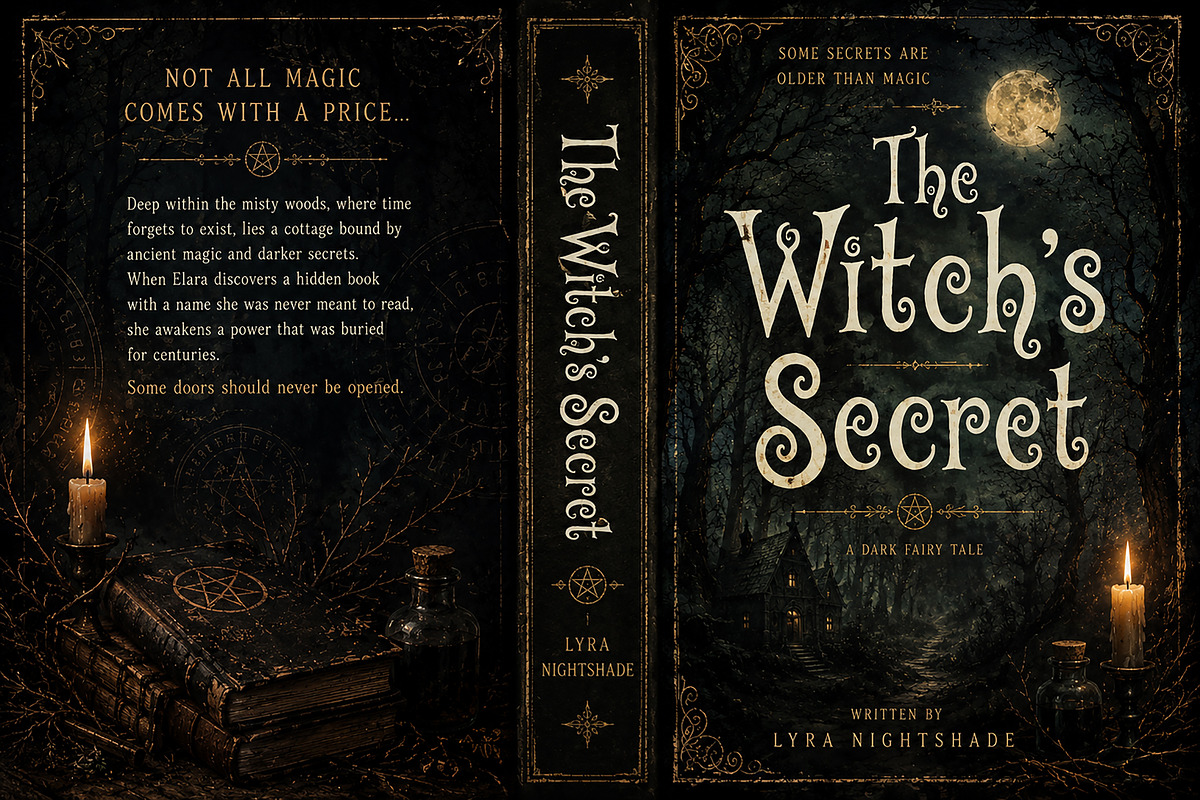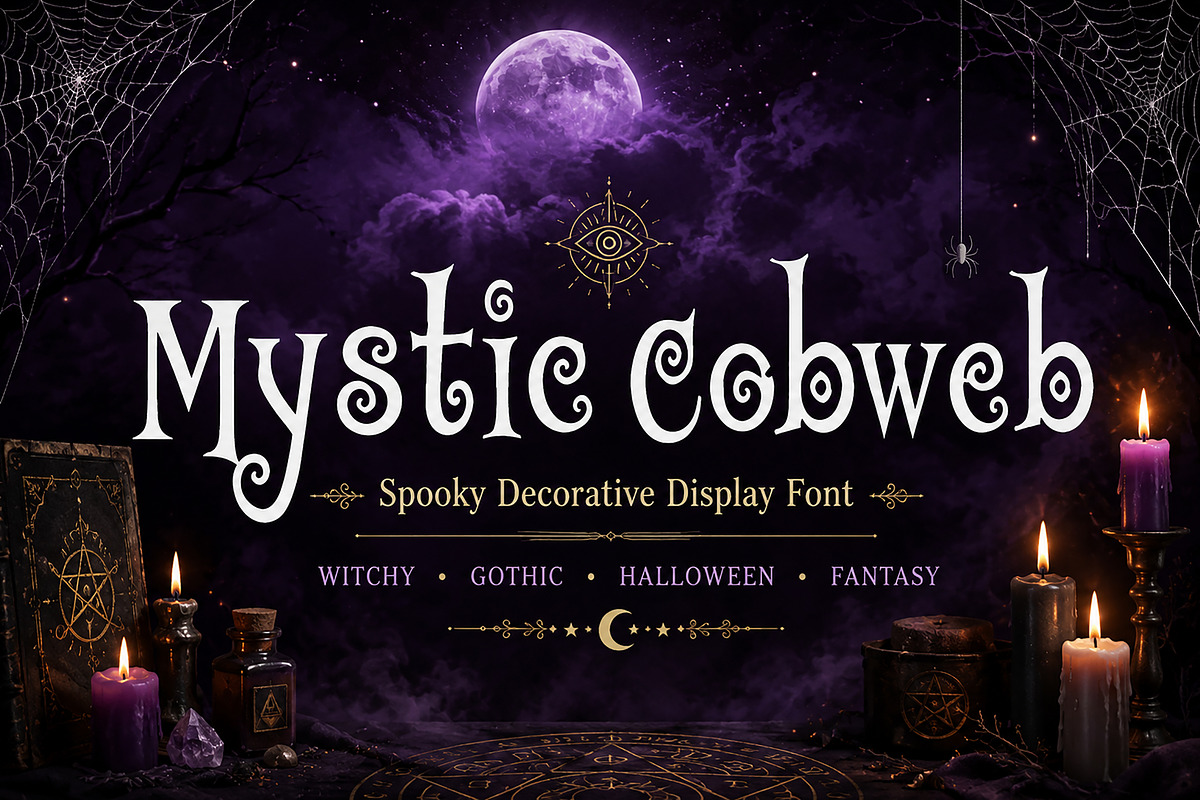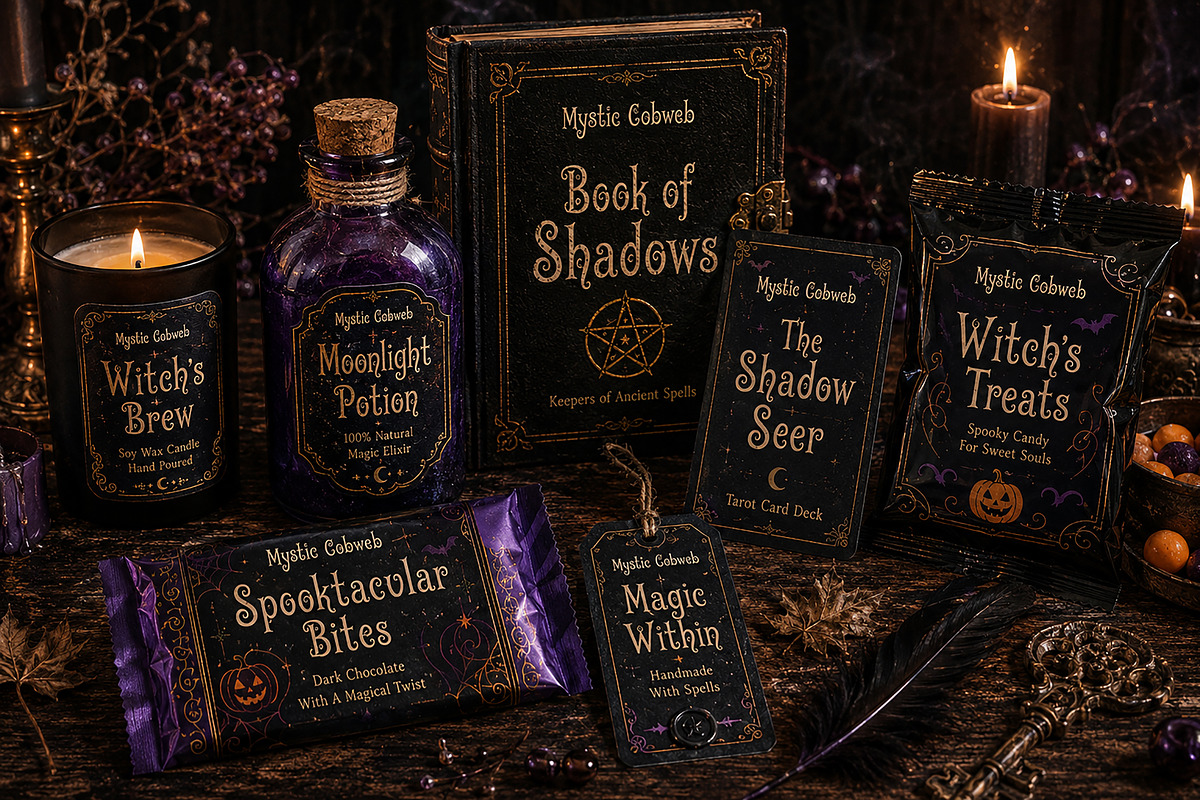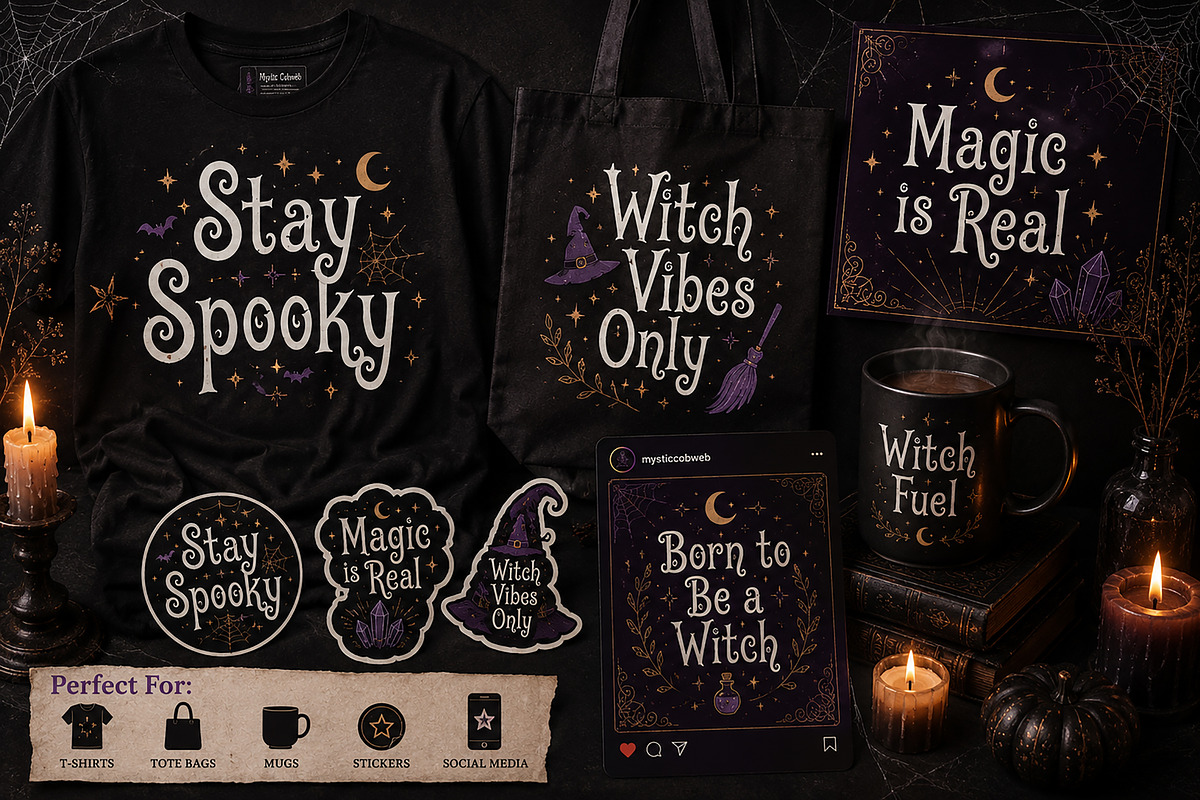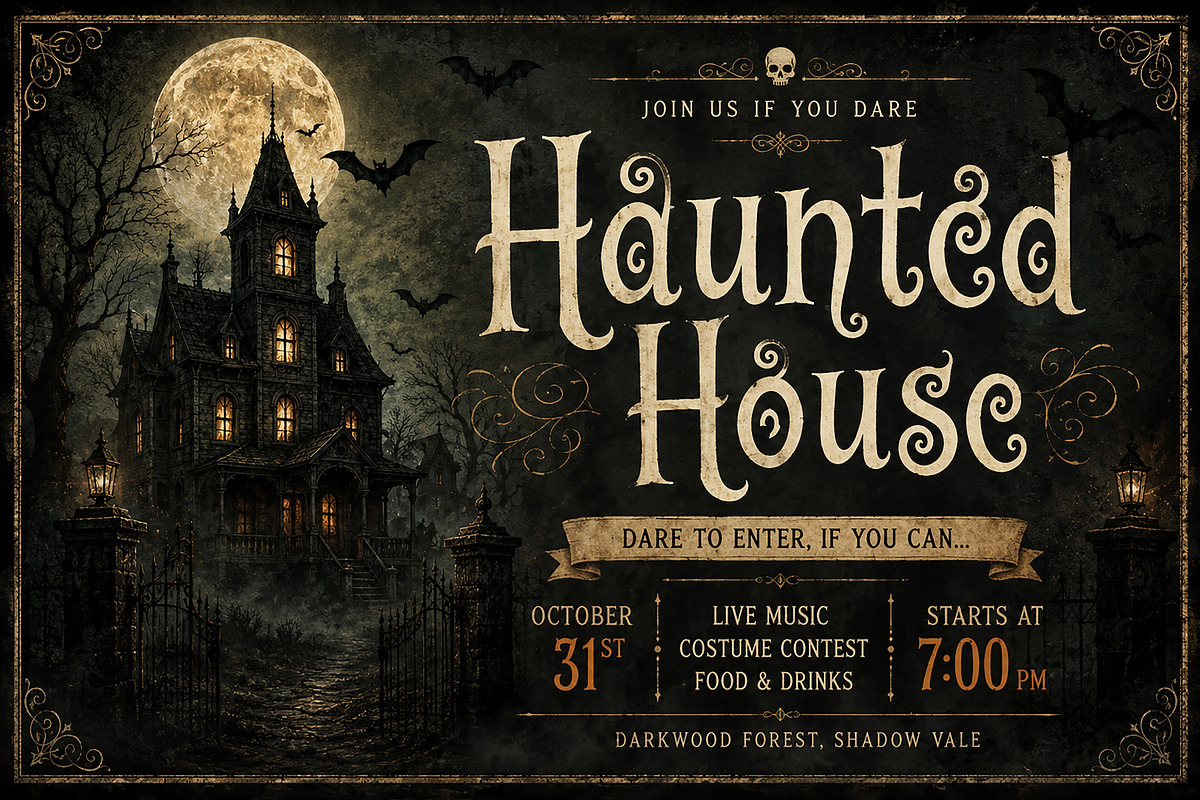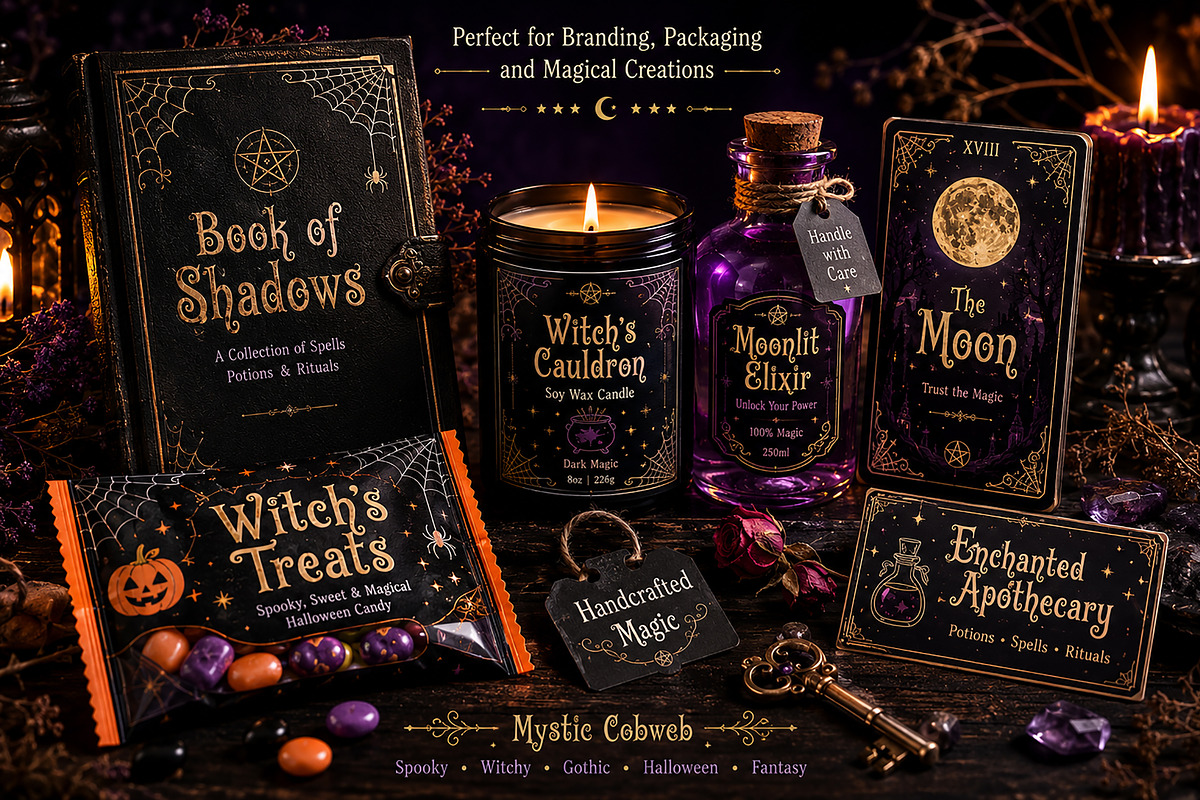
Mystic Cobweb
Mystic Cobweb – Spooky Decorative Halloween Font
Mystic Cobweb is a spooky decorative display font crafted for Halloween, fantasy, and gothic-inspired projects. With its curly twisted strokes, eerie letterforms, and magical vintage charm, this font brings a mysterious and enchanting vibe to any design.
Perfect for horror posters, haunted house flyers, book covers, witch-themed branding, tarot packaging, seasonal merchandise, Halloween party invitations, spooky quotes, and magical social media graphics.
Its unique handcrafted style blends gothic elegance with playful horror aesthetics, making it ideal for both commercial and personal creative projects.
• Halloween Posters
• Horror Movie Titles
• Fantasy Book Covers
• Witchcraft Branding
• Tarot Cards
• Potion Labels
• Candle Packaging
• Apparel Design
• Stickers & Merch
• Social Media Posts
• Party Invitations
• Seasonal Crafts
Add a dark magical touch to your next project with Mystic Cobweb — a font designed to make your creations look hauntingly beautiful.